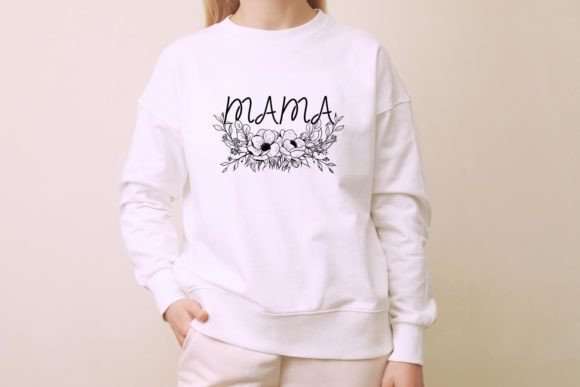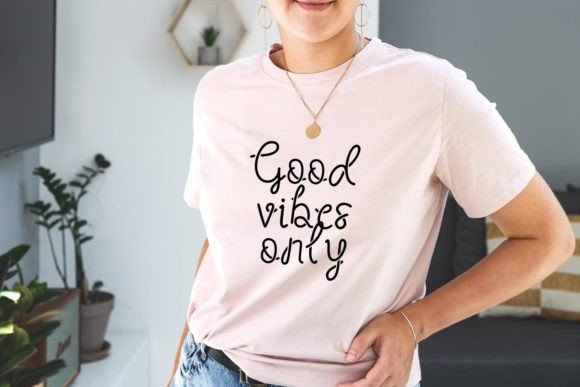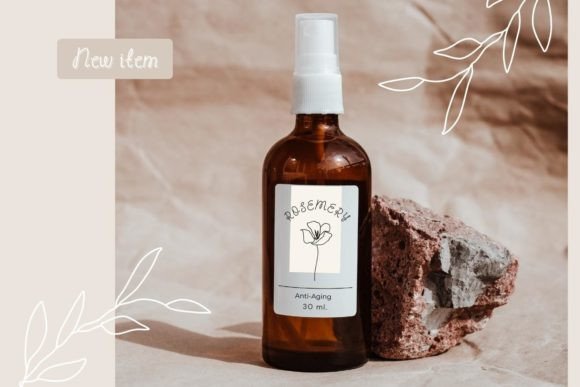
Introduction to Kissing Rainbow Font Font
Fonts play a crucial role in design, and the Kissing Rainbow Font font is a typeface that brings both character and versatility to any project. Whether you’re working on a branding project, a website, or a print design, the Kissing Rainbow Font font offers a unique style that can elevate your work.
Introducing βKissing Rainbowβ the sweet and tender handwritten font that exudes a stylish and modern simplicity.
With its graceful curves and elegant strokes, Kissing Rainbow is the perfect choice for branding, merchandise, T-shirts, stickers, logos, and packaging This font adds a touch of charm and sophistication to your designs, capturing attention and leaving a lasting impression.
Key Features of Kissing Rainbow Font Font
Why Choose Kissing Rainbow Font Font?
The Kissing Rainbow Font font is more than just a typeface β it’s a design tool that helps you communicate your message with style and clarity. Its unique character set and versatile design make it suitable for a wide range of applications, from elegant invitations to bold headlines.
With its carefully crafted letterforms and balanced proportions, the Kissing Rainbow Font font ensures readability and visual appeal across all mediums.
What makes Kissing Rainbow Font font special?
The Kissing Rainbow Font font stands out with its unique design, exceptional readability, and versatility across various design applications.